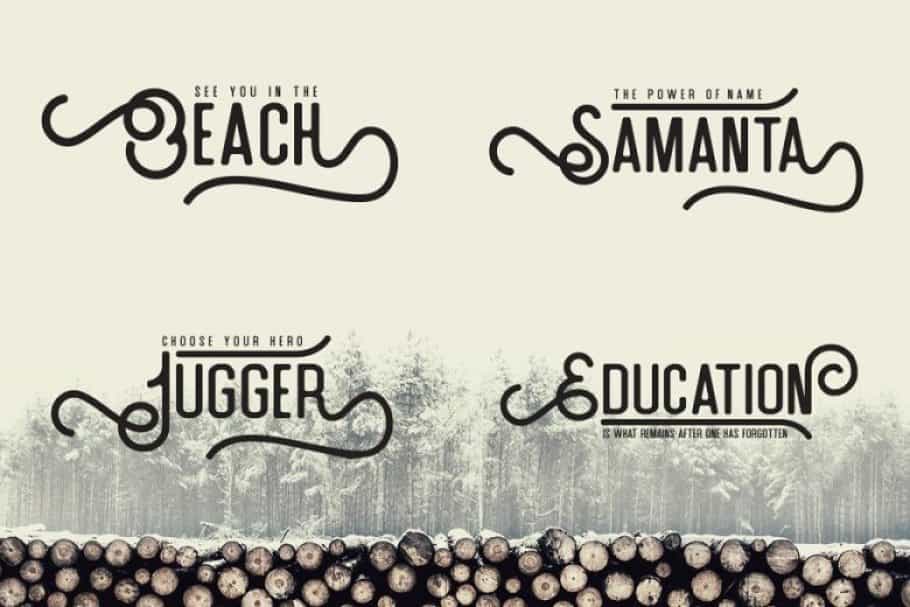
Discover Artefak Vintage Display Font, part of the Sans Serif Display Vintage collection—a versatile and unique font perfect for adding a personal touch to your projects. Download it for free and enjoy crafting designs with style, from invitations to social media posts. This font is available exclusively for personal use, giving you the freedom to create without limits. Unlock your creativity with Artefak Vintage Display Font today!
Artefak is a typeface that was created by hand featuring two styles: Sleek and contemporary based on handwritten fonts and retro aesthetics ideal for your extraordinary designs (Brands, Posters, Logos, Logos advertising, etc.)